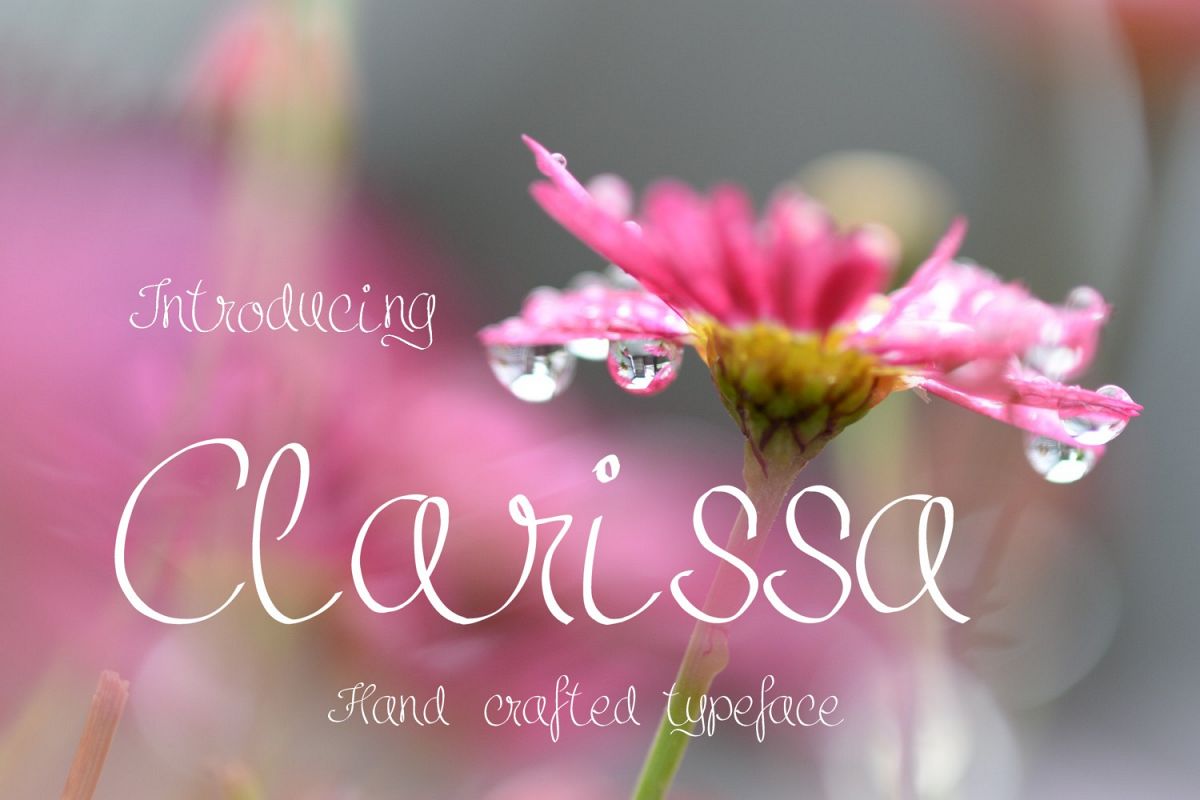
Clarissa Font
Clarissa is a carefully drawn font. It was drawn by hand on a digital tablet.
Clarissa is great for invitations, cards, branding, logos, titling, signage, poster, flyers or t-shirts design, headlines and more!